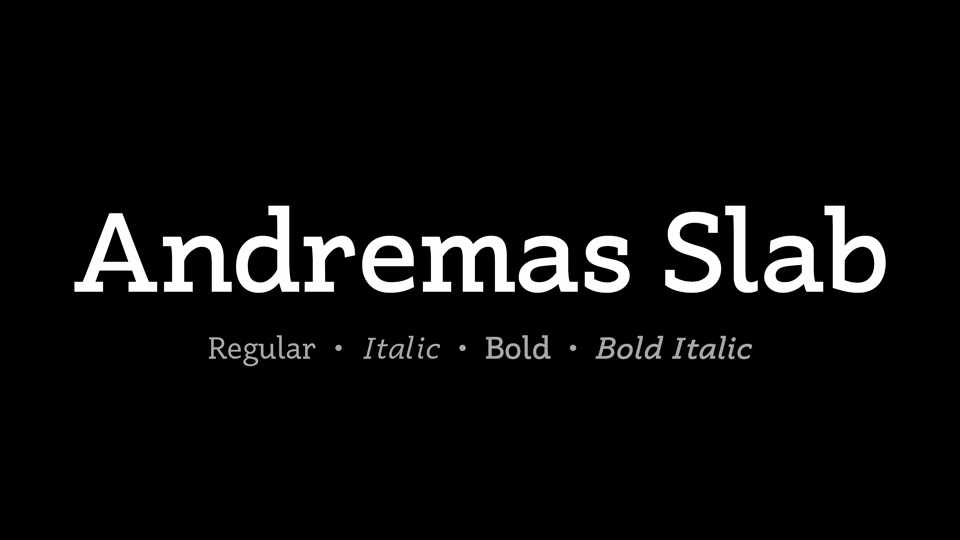
Download Andremas Slab typeface, a slab serif typeface in four styles with old-style figures based on Andika SIL. Andremas Slab has focused on clear, easy-to-perceive letterforms and has good readability and legibility .
Designer: Xiota